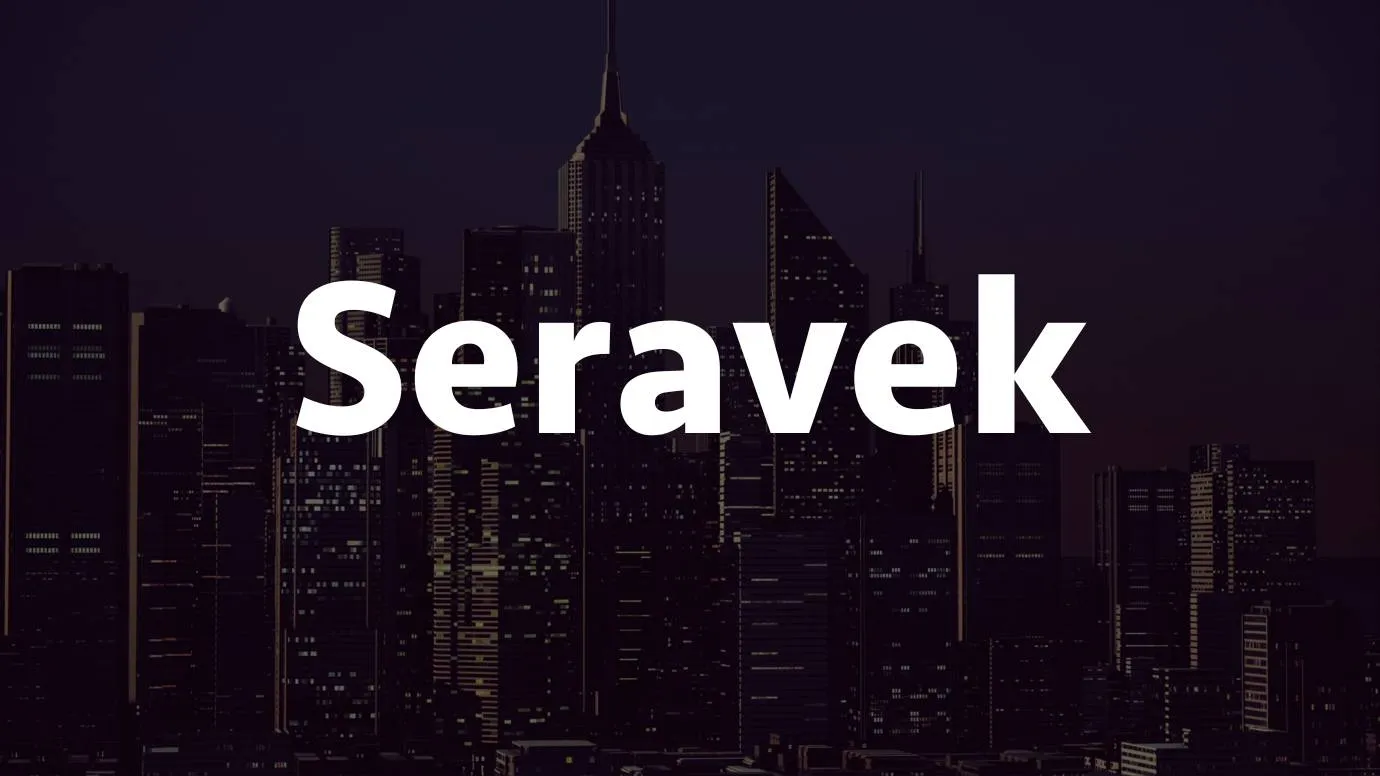
Seravek Font Family is a stunning texture. Eric Olson is a very famous designer who took charge of the creation of this typeface and later releases this typography from Process Type Foundry.
In the year 2007, this typeface was released for the first time. This texture supports different Latin languages all across the globe. For more information about its looks, you can also check its similar Ace Sans font which is attainable in the same category.
| Name | Seravek Font |
| Type | Sans Serif |
| Designer | Eric Olson |
| Foundry | Process Type |
| Date Released | 2007 |